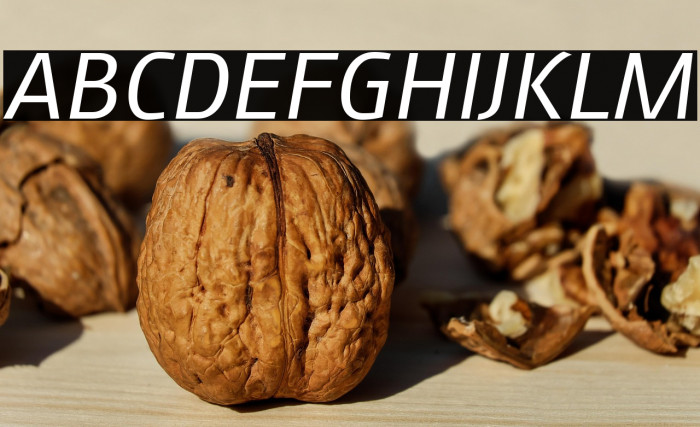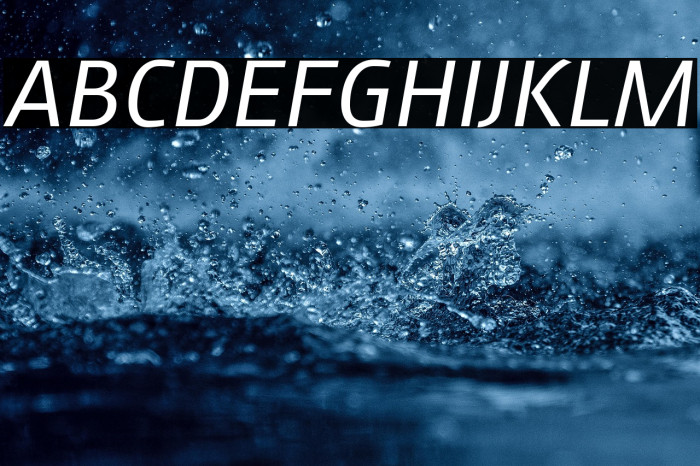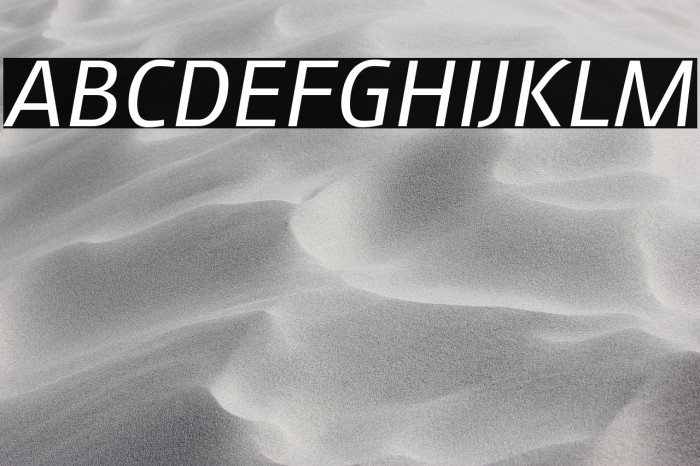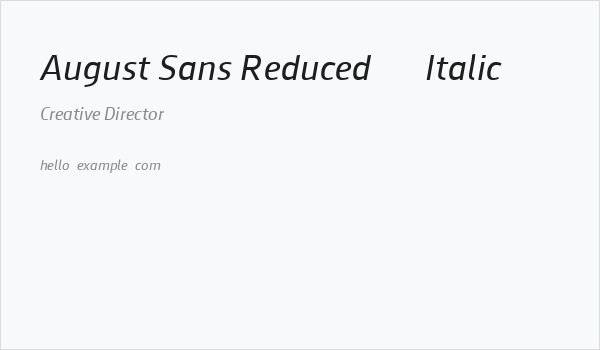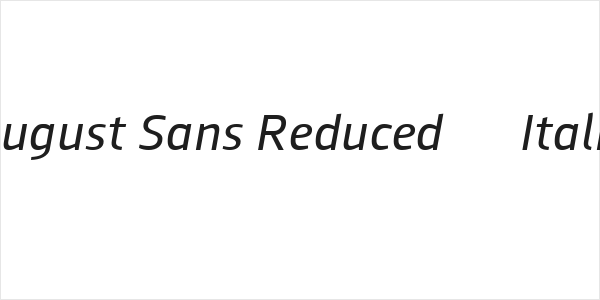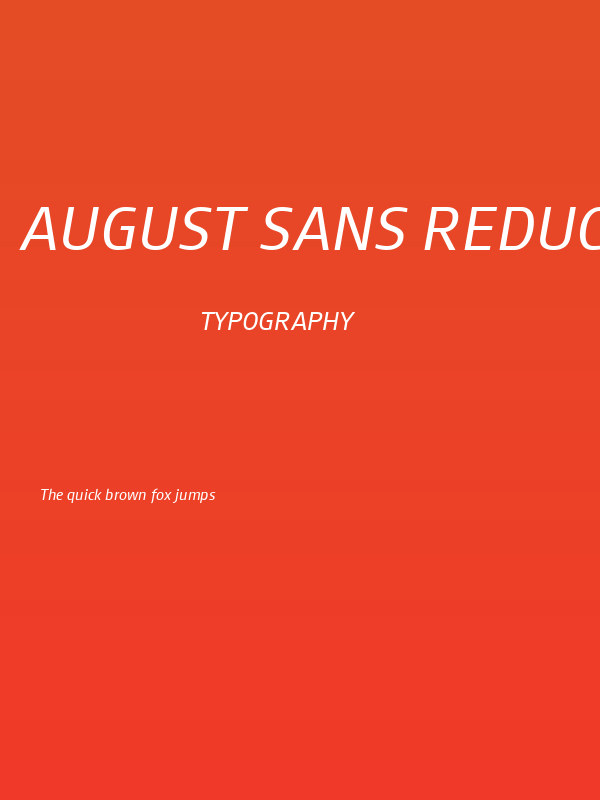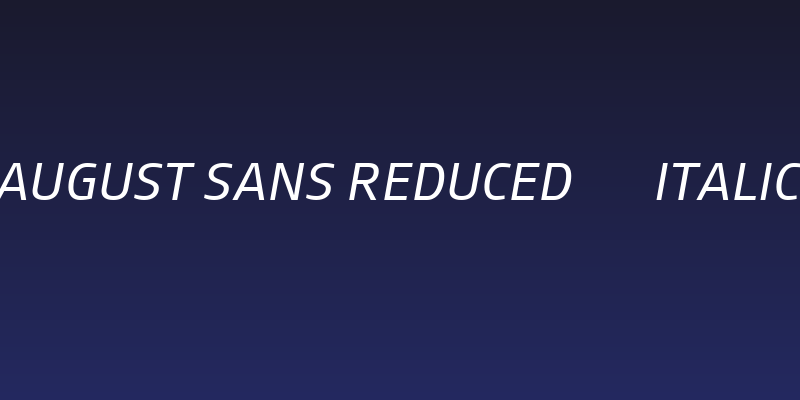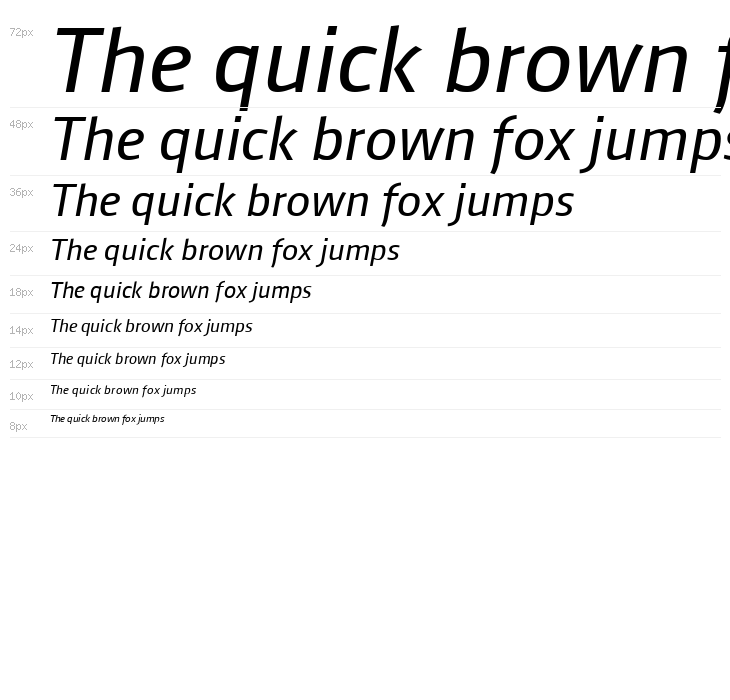
August Sans Reduced 56 Italic Font
August Sans Reduced 56 Italic Description
This font features a clean and modern sans-serif style with a subtle italic slant, giving it a dynamic and contemporary appearance. The characters are well-proportioned with a consistent stroke width, providing a sleek and professional look. The uppercase and lowercase letters maintain a harmonious balance, making it suitable for a variety of design applications. The numerals and special characters are crafted with the same attention to detail, ensuring readability and aesthetic appeal. Its simplicity and elegance make it versatile for both digital and print media.
| Proposed Projects | Ideal for branding, editorial design, web design, and advertising materials. |